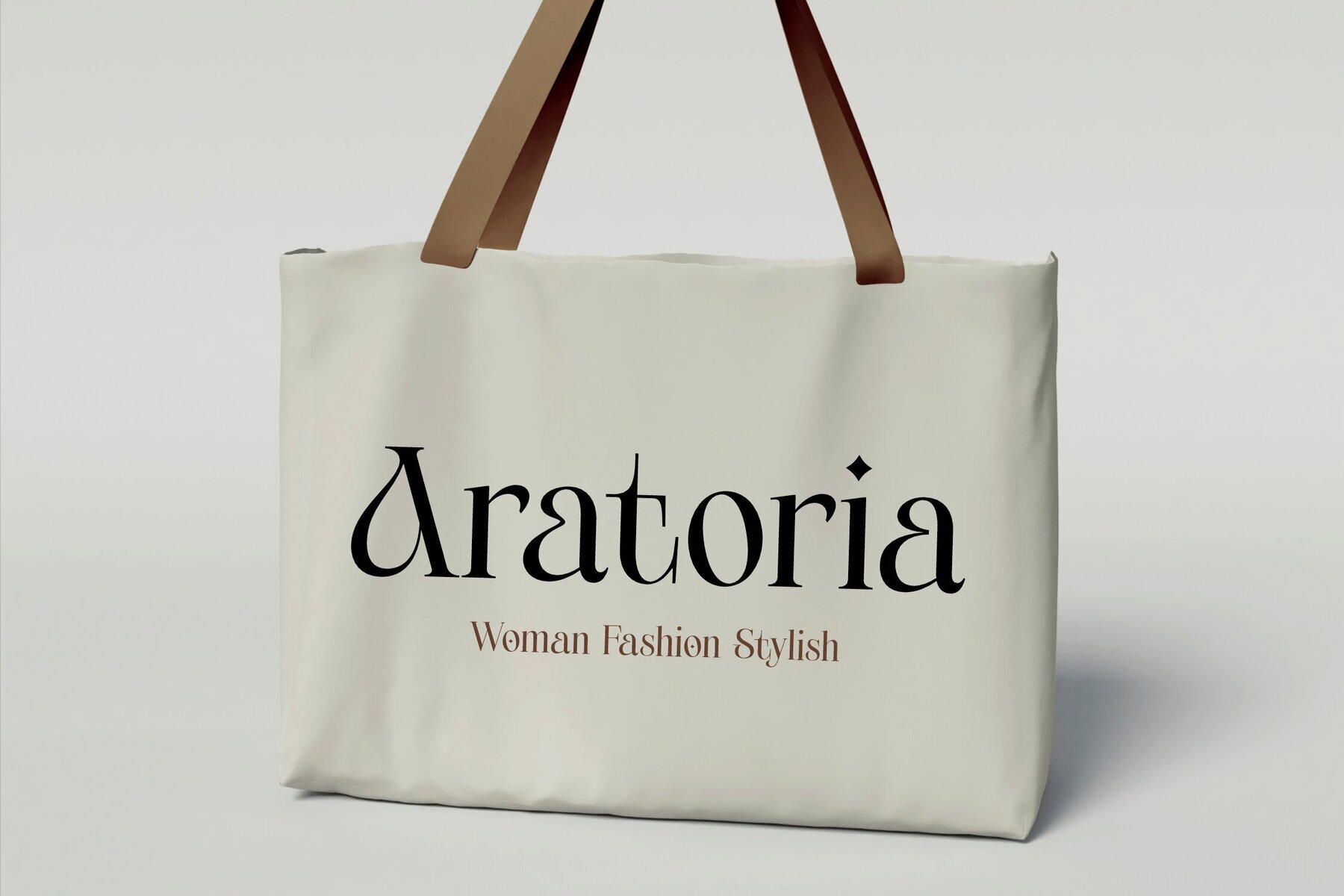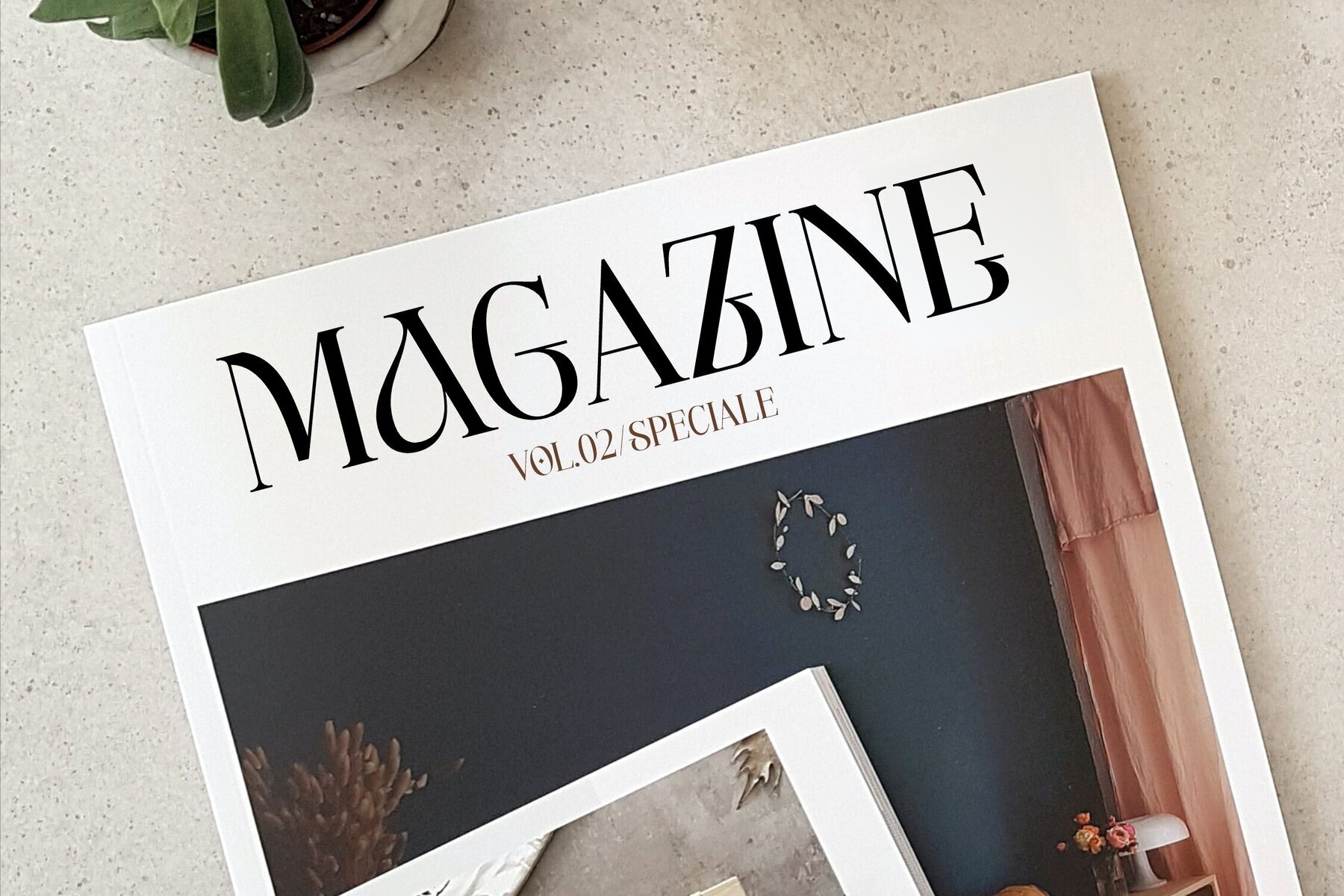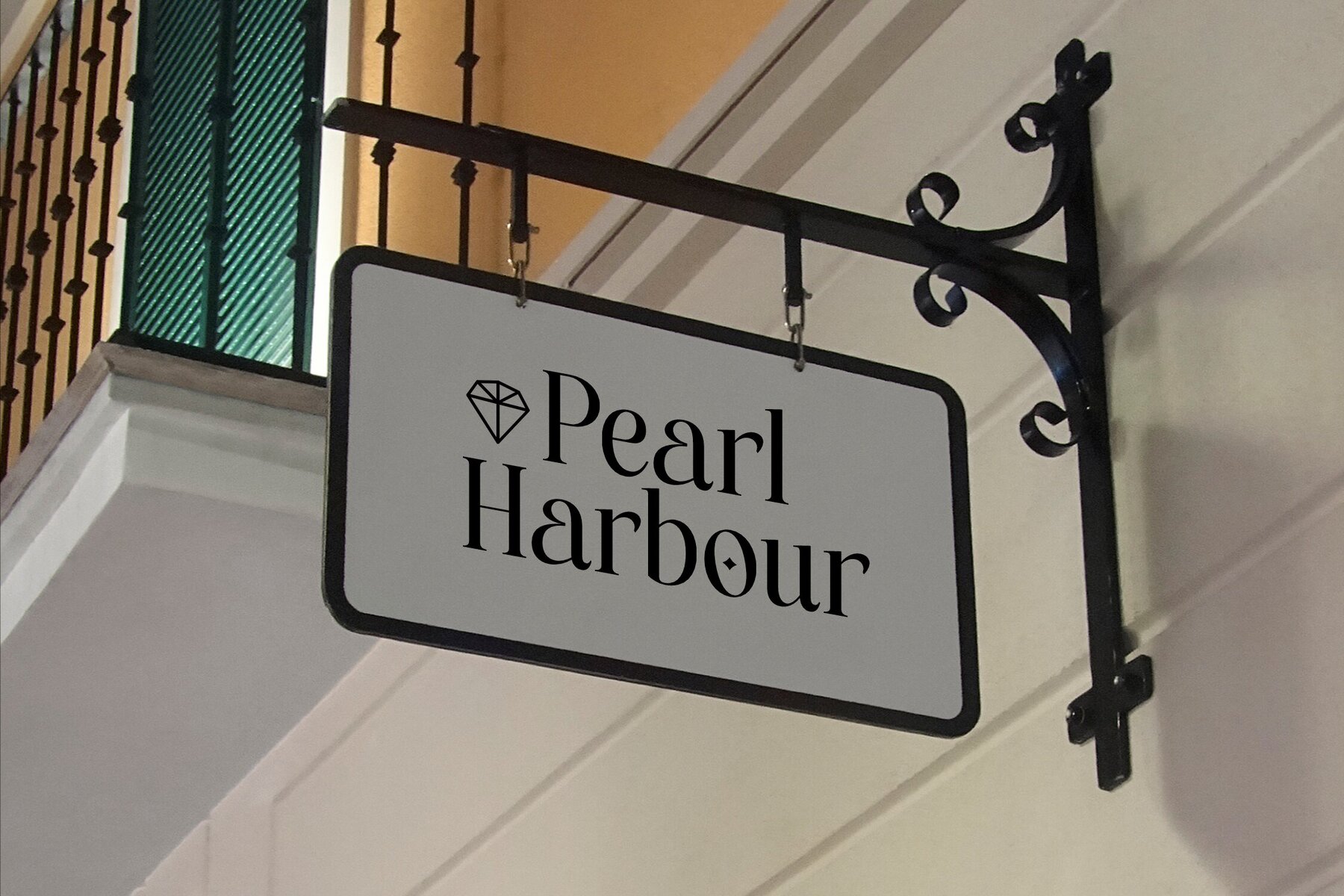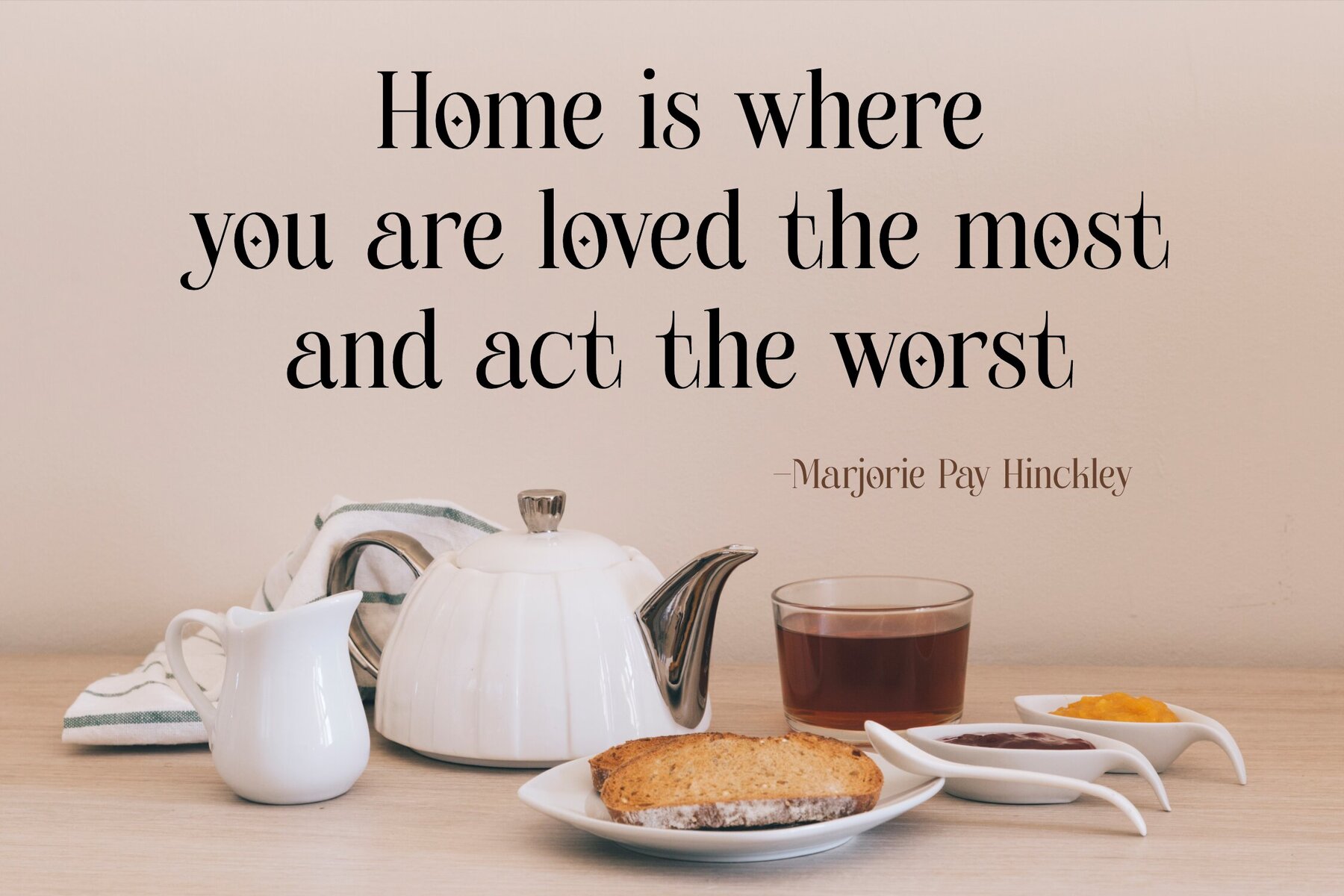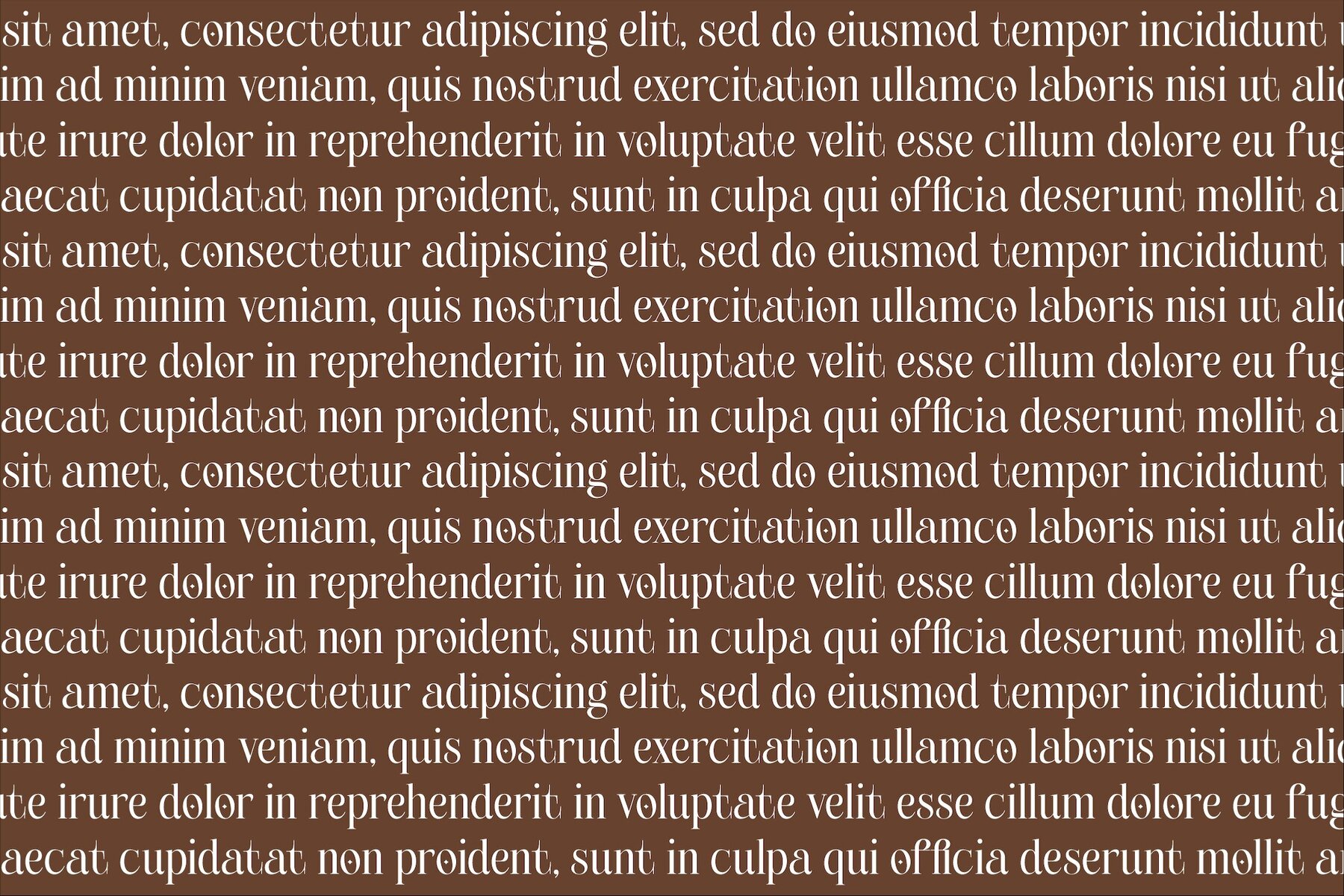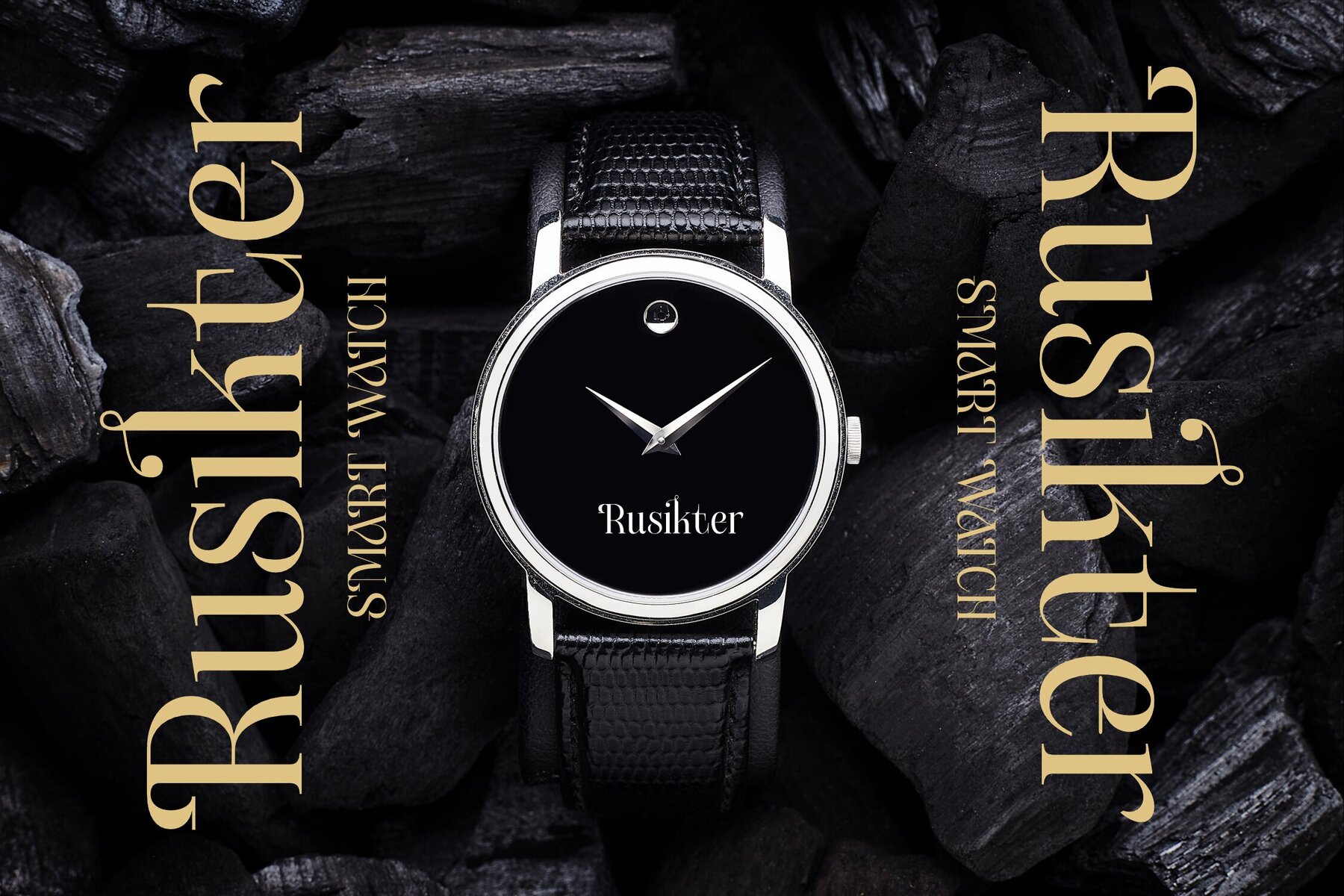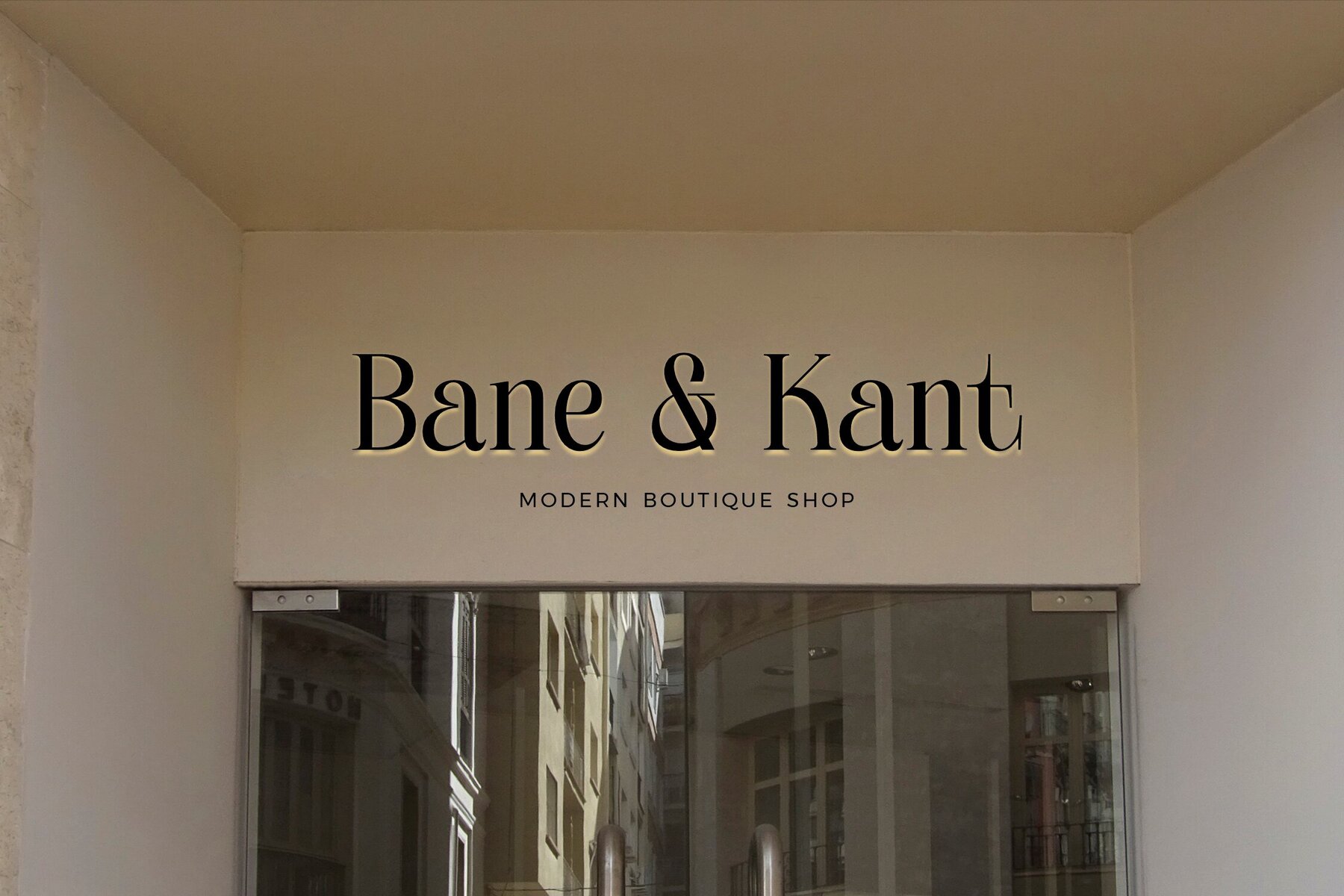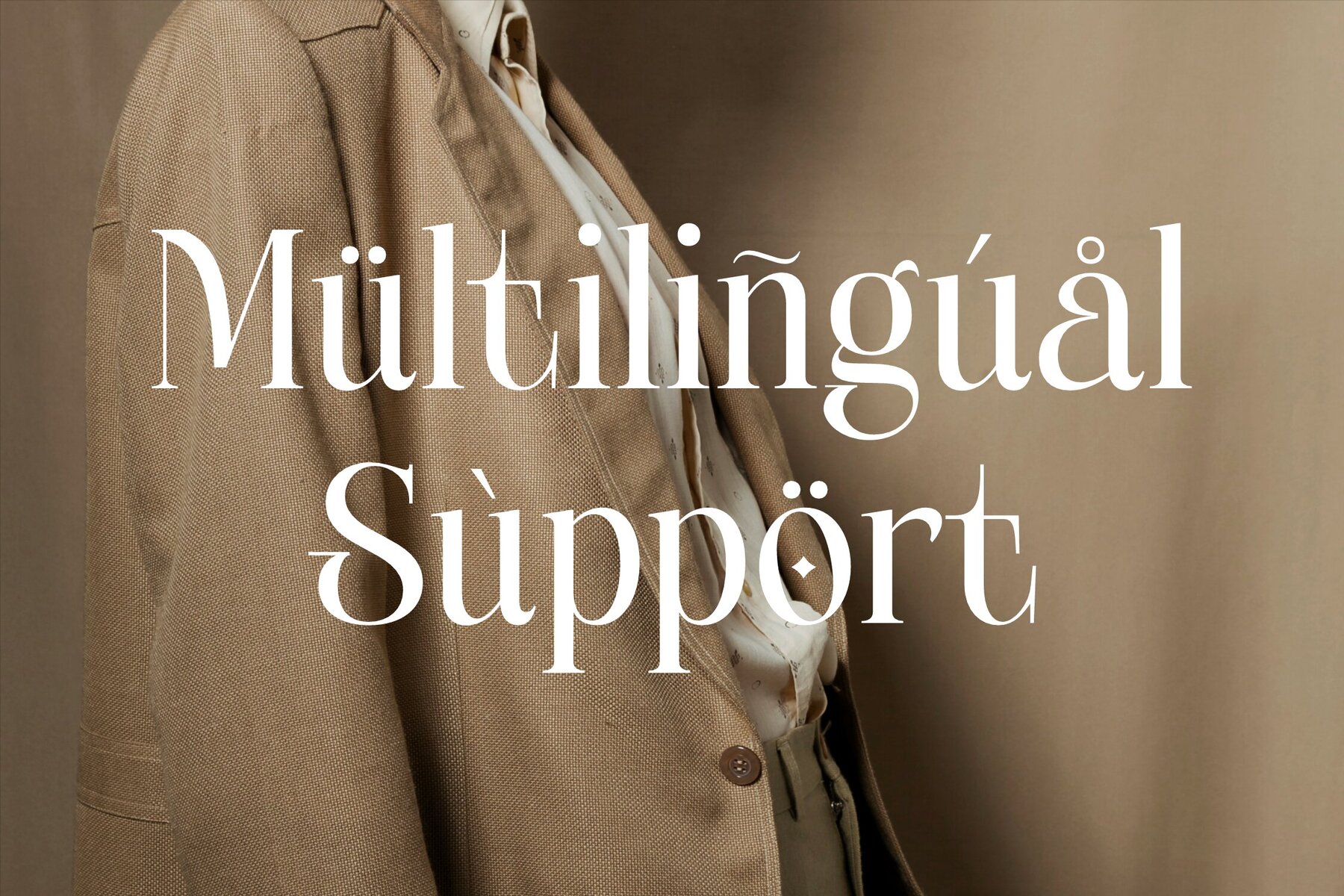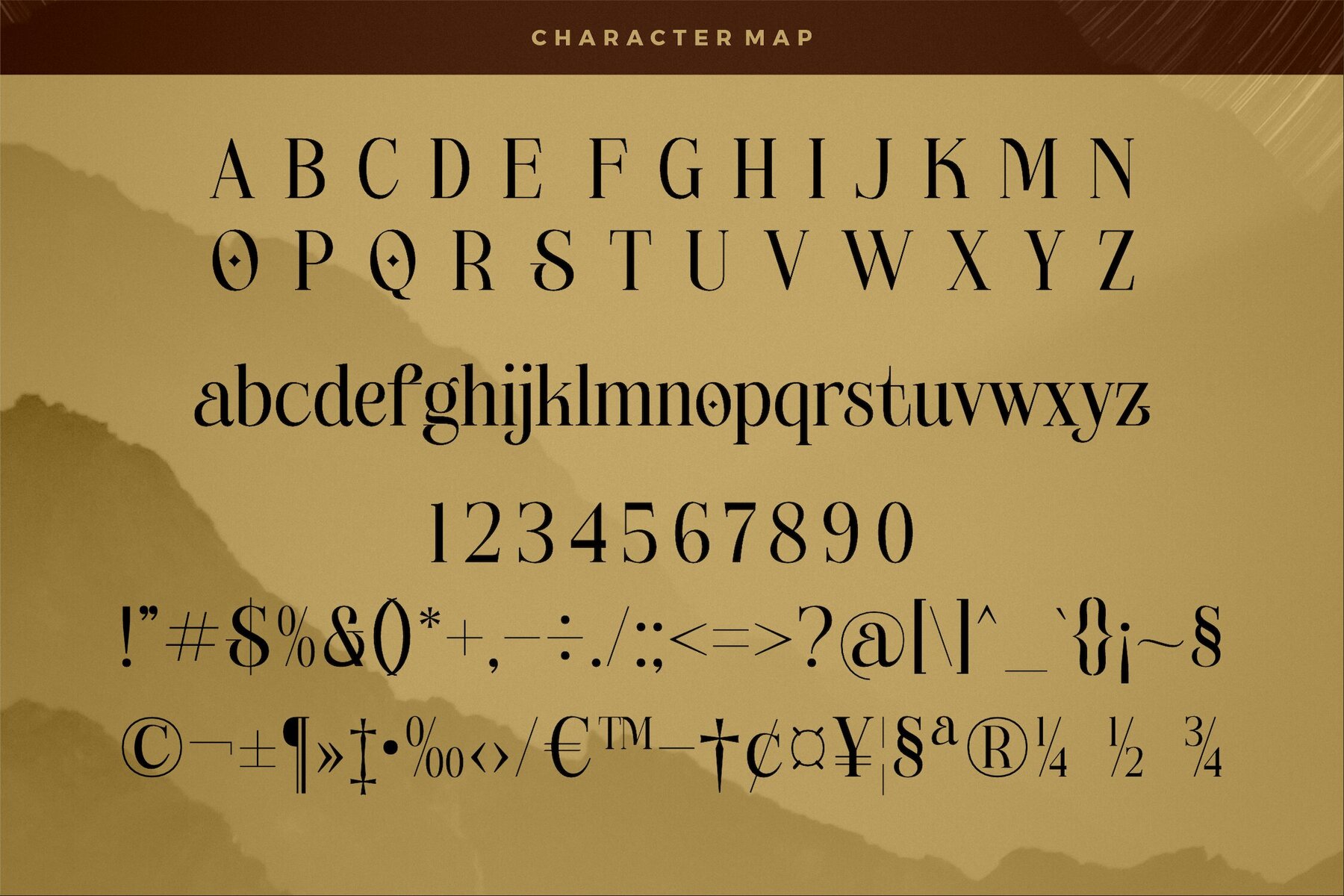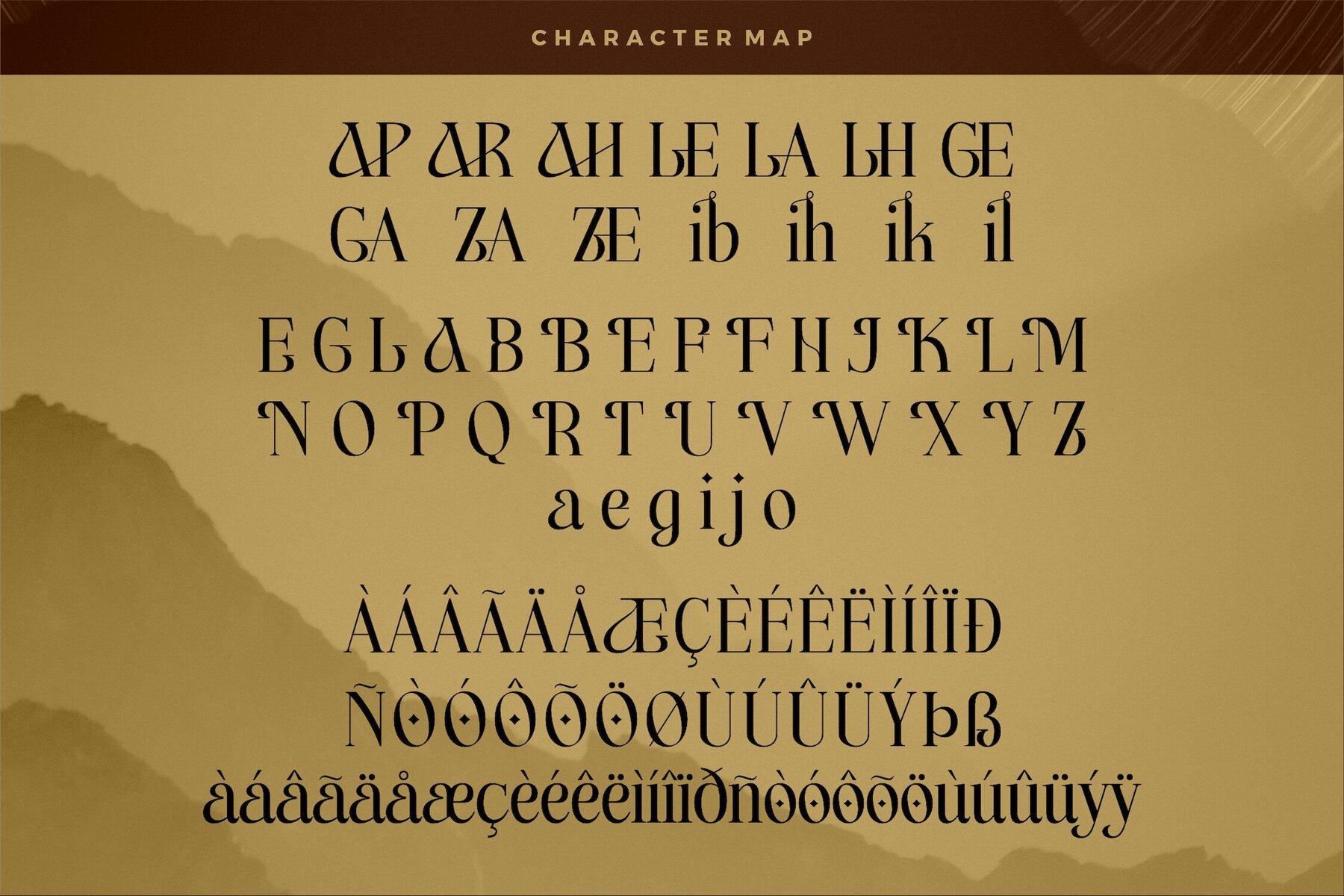
Margesh Font
Margesh Regular
Margesh Italic
Discover the Margesh Typeface, a perfect blend of modern and classic serif styles by Storytype Studio. With its unique elegance and luxury appeal, this typeface is your ideal choice for designing sophisticated logos, book titles, fashion brand identities, magazines, clothing lines, and more. Its versatility allows for expressive lettering and inspiring quotes.Margesh Typeface